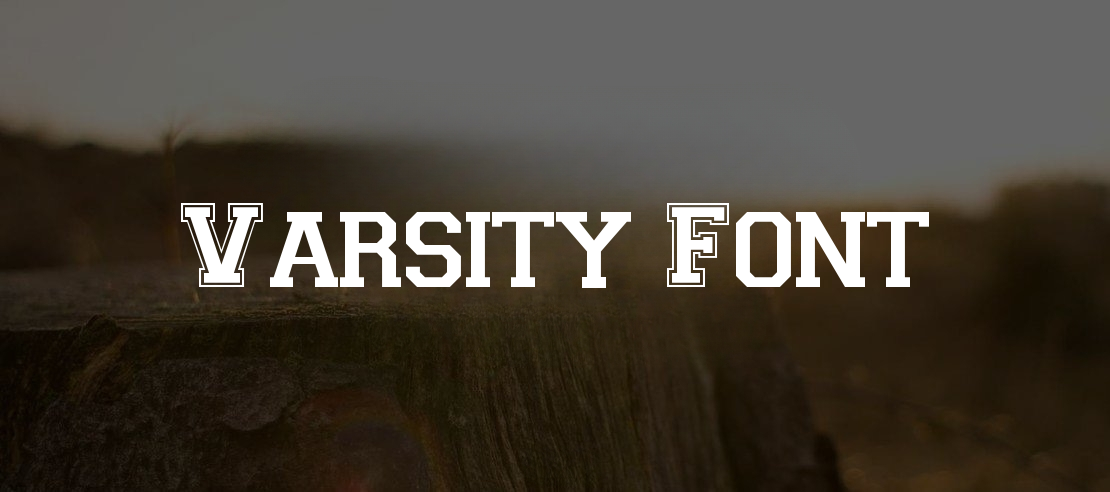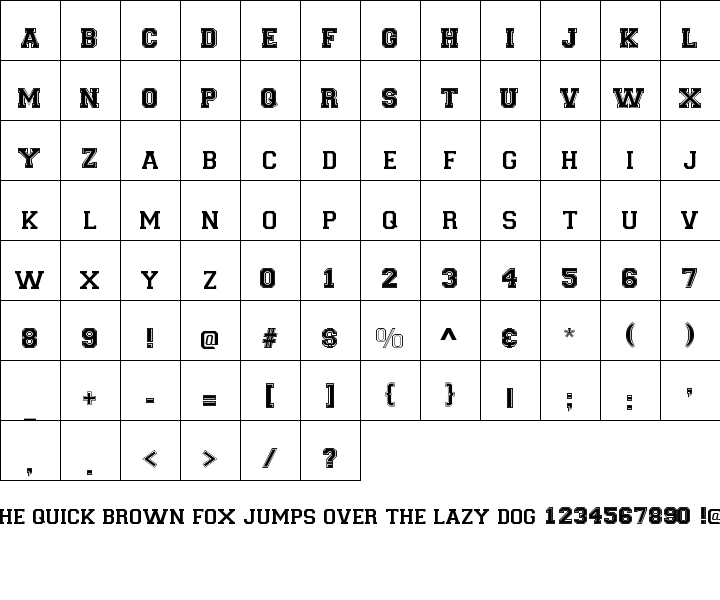
Today we are going to introduce a typeface that is a high-quality font that has a strong and bold texture appearance named Varsity Font. This font style belongs to the fancy font family. If you are looking for a typeface that provides your designs and projects a vintage vibe then look no further.
This font style has the perfect vintage style characters that are inspired by the typography that was used in the late ’90s. This typeface also has an amazing pairing nature. This typeface can easily make paired with different typography such as cherry cream soda font.
Creator of Varsity Font
This old-school is created by a typography-making software named Brøderbund Software. Many of the classic typefaces are created with the help of this font style.
While creating this font style the main focus was to create the characters readable and they produce perfect vintage vibes in the designs.
This typeface is comprised of the family of itself. All of the style features include uppercase and lowercase alphabets, numbers, punctuations, set of glyphs, symbols, special characters, and Multi-Language Support. The family of this font is given below.
- Varsity-VARS
- Varsity-Bold
- Varsity-Regular
- Varsity-Condensed
View of Varsity Font
| Name | Varsity Font |
| Style | Fancy |
| Designer | Brøderbund Software |
It can support up to 104 languages.
What type of font is Varsity font?
It is a vintage font style that belongs to the fancy font family. It is designed by a font-making software named Brøderbund Software.
What font is closest to Varsity Font?
Some of the typographies are really similar to this font texture. But, Avenir Font has the utmost similarities to this font. So, feel free to use this typeface as an alternative to this font style.